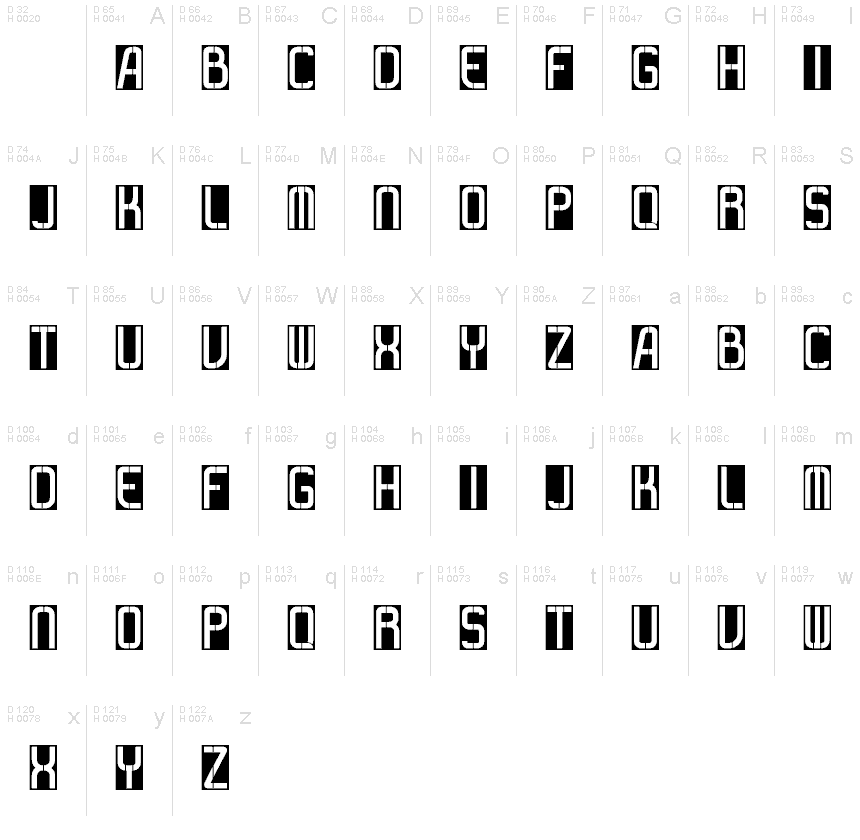
Flughafen Regular
Flughafen, the latest stencil display font by Vladimir Nikolic, embodies the simplicity, legibility and neutrality that are synonymous with the world of airline branding. It features a bold sans serif type design with flat lines and a clean layout suitable for designing logos and headlines for websites and mobile applications related to the airline industry or for crafting eye-catching advertisements and UX designs.
Flughafen is the perfect solution for those who need a font to support their multilingual branding campaigns, especially for airport and airline companies looking to add titles and captions to posters, online check-in screens, boarding passes and mobile applications. It is an extremely practical font; even though it is not multi-lingual, it’s perfect for short words and text, and it can be paired with a cursive font for names and short descriptions, all for multilingual branding.
It can also be used in UX designs, for app labels, and even for poster design and flyers, just make sure to stick to short words to ensure that your message is easily seen and delivered with a modern touch, after all it’s all about making an impact and with Flughafen this is an easy task. Use it for packaging designs or combine it with others, the choice is yours!